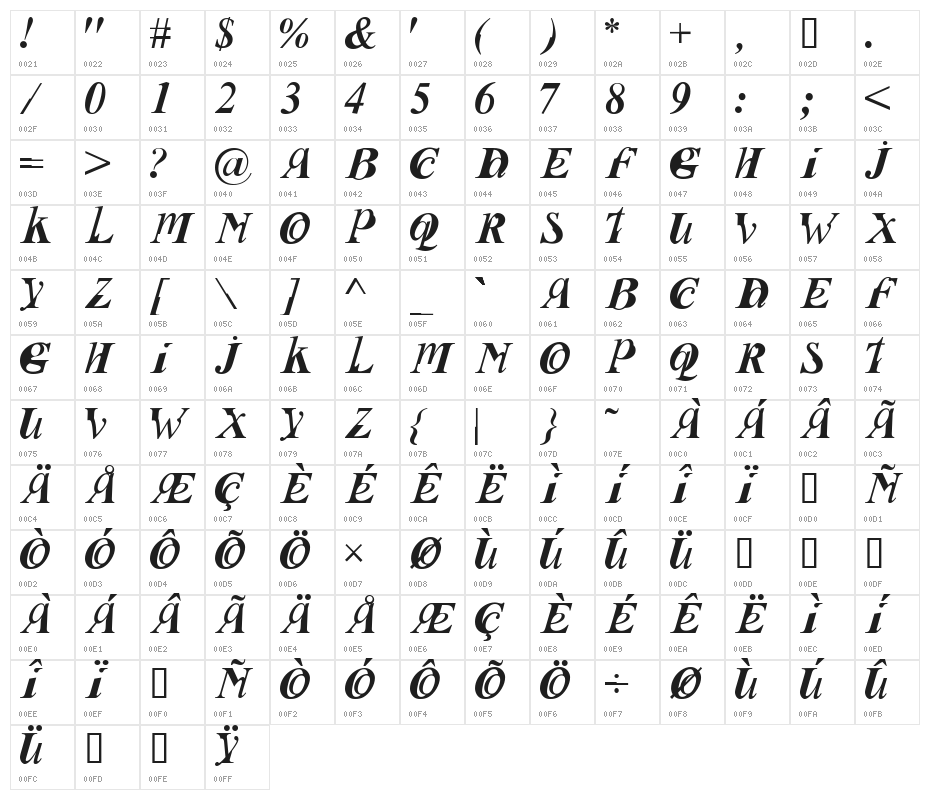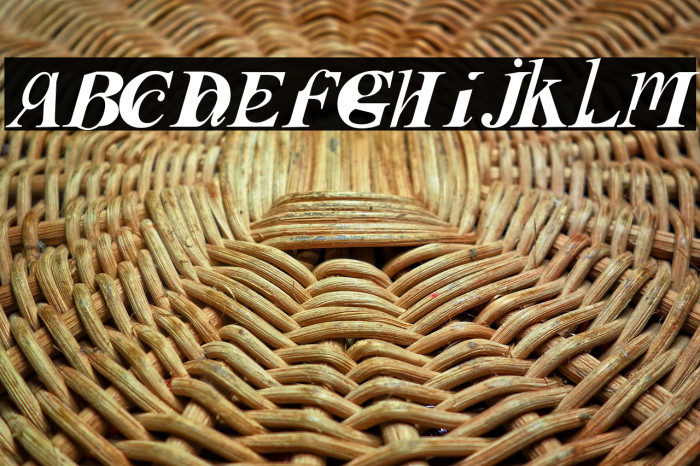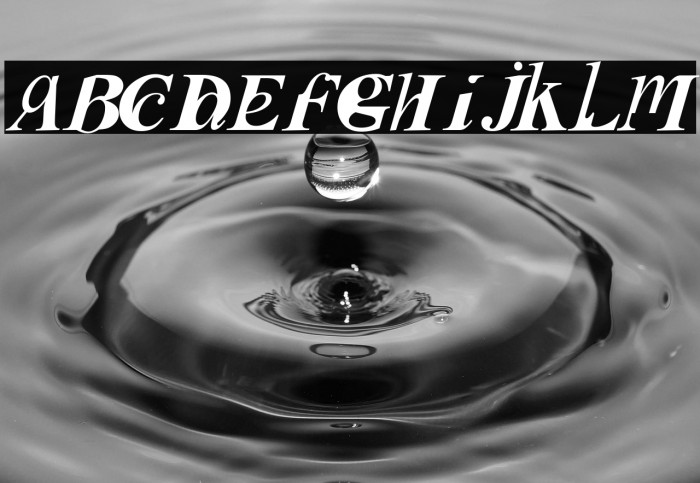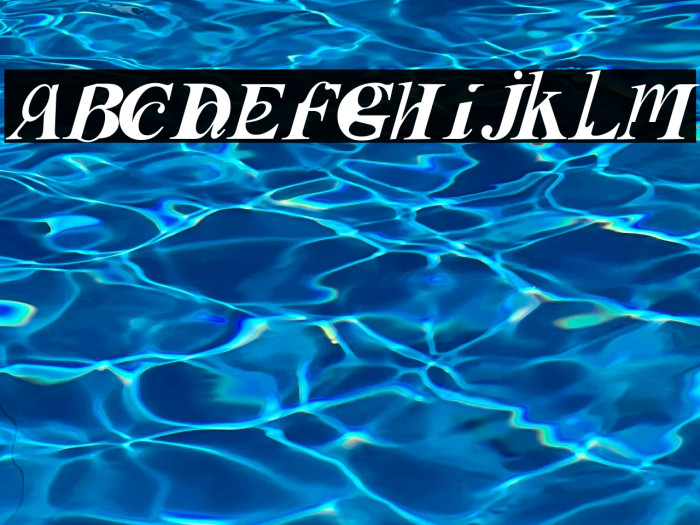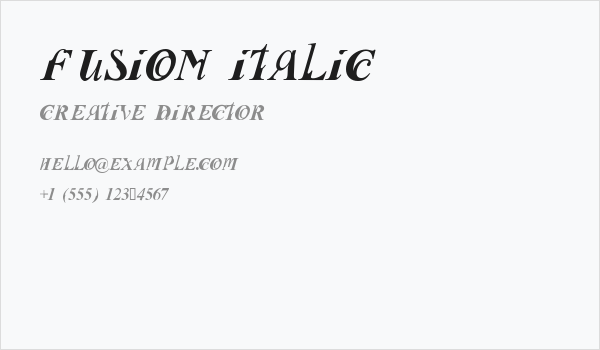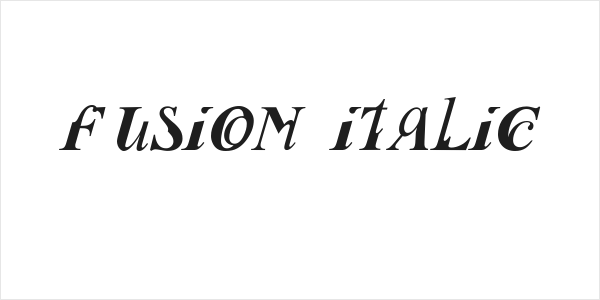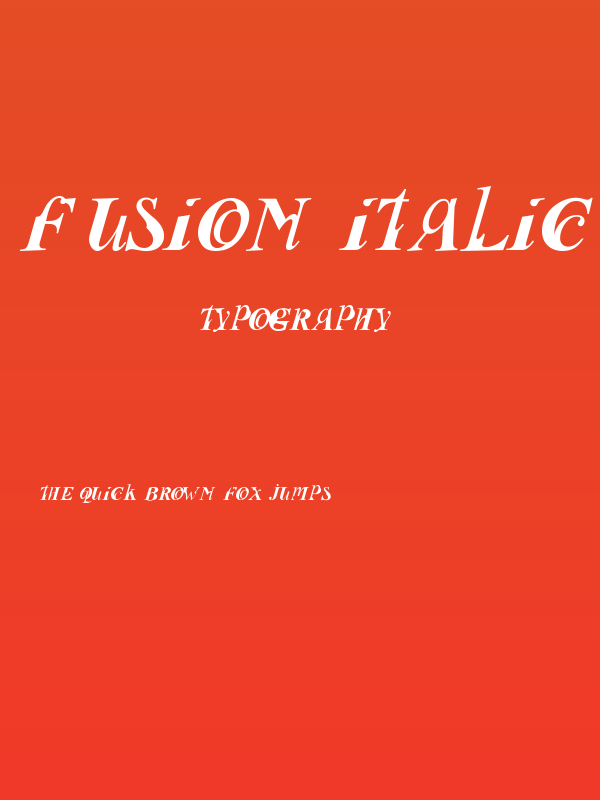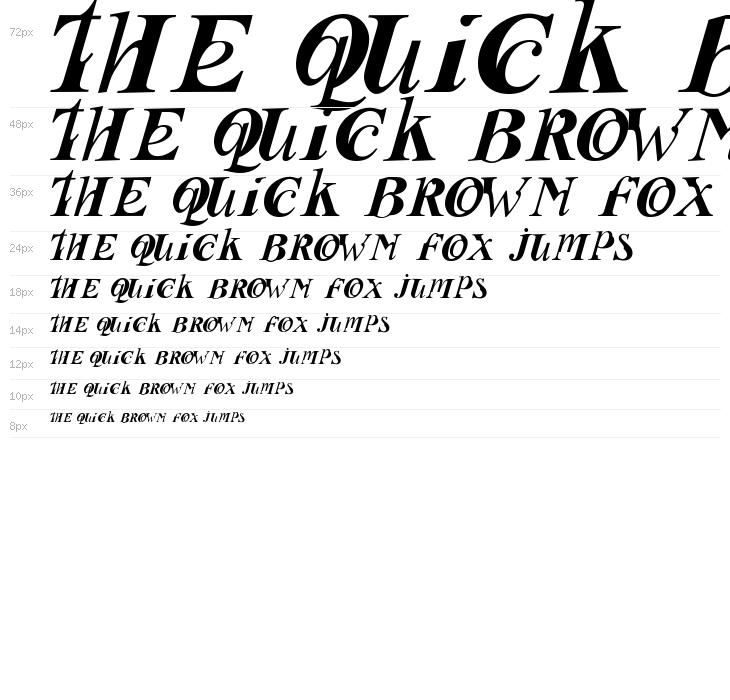
Fusion Italic Font
Fusion Italic Description
This font features a dynamic and expressive italic style, characterized by its flowing and cursive letterforms. The strokes are bold and confident, with a slight slant that adds a sense of movement and elegance. The uppercase letters are distinct with sharp angles and curves, while the lowercase letters maintain a consistent rhythm and flow. The numerals are bold and clear, ensuring readability. Special characters are designed with the same attention to detail, making them cohesive with the rest of the typeface. This font's unique style makes it suitable for creative and artistic projects.